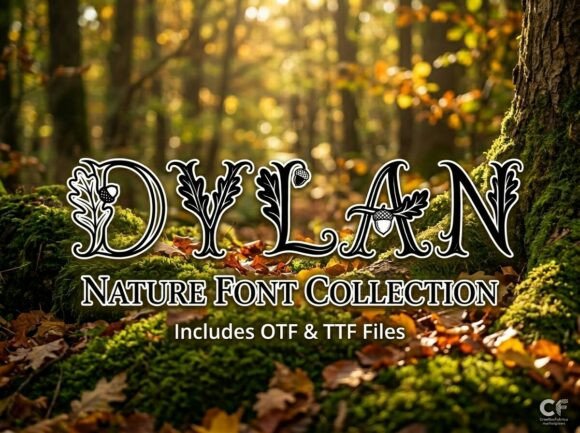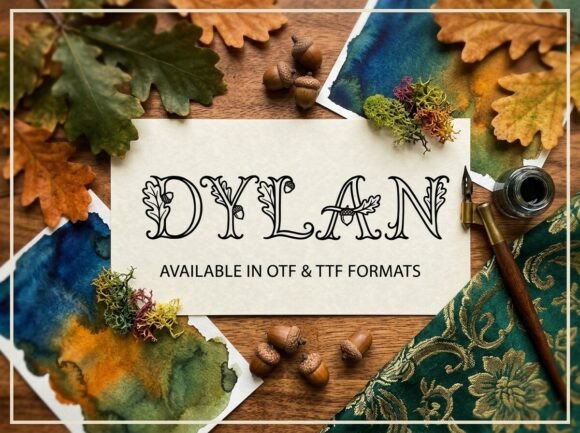
Introducing Dylan Font: A Majestic Display Typeface for Your Creative Projects
Are you looking for a font that can add a touch of elegance and whimsy to your creative projects? Look no further than Dylan Font, a stunning display typeface that captures the essence of the great outdoors. With its unique blend of classic serif letterforms and organic, hand-drawn elements, Dylan is the perfect choice for designers and crafters who want to bring a sense of wonder and magic to their work.
The Inspiration Behind Dylan Font
Dylan Font is inspired by the beauty of the natural world, with a focus on the majesty of the forest. The font features elegant, high-contrast serif letterforms that are uniquely integrated with rhythmic, hand-drawn oak leaves and acorns. These organic elements sprout gracefully from the terminals of the letters, adding a touch of whimsy and playfulness to the font. The result is a typeface that feels both refined and rustic, perfect for projects that require a sense of balance and harmony.
Key Features of Dylan Font
So what makes Dylan Font so special? Here are just a few of its key features:
- Elegant Serif Letterforms: Dylan Font features classic serif letterforms with a high-contrast design that adds a touch of sophistication and elegance to any project.
- Hand-Drawn Oak Leaves and Acorns: The font’s unique organic elements are hand-drawn and add a touch of whimsy and playfulness to the design.
- Balanced Structural Weight: Dylan Font has a balanced structural weight that makes it perfect for a wide range of applications, from headings and titles to body copy and captions.
- Organic Personality: The font’s organic personality makes it feel approachable and natural, perfect for projects that require a sense of warmth and authenticity.
Use Cases for Dylan Font
Dylan Font is a versatile typeface that can be used in a wide range of creative projects. Here are just a few ideas to get you started:
- Independent Botanical Branding: Use Dylan Font to create stunning branding and packaging for your botanical products, from skincare and cosmetics to plant-based foods and beverages.
- Autumn-Themed Event Stationery: Add a touch of seasonal charm to your event stationery with Dylan Font, perfect for weddings, harvest festivals, and other autumn-themed celebrations.
- Artisanal Forest-to-Table Menus: Use Dylan Font to create menus that showcase the beauty of the forest and the freshness of your ingredients.
- High-Impact Social Media Headers: Make a statement with Dylan Font and create high-impact social media headers that grab attention and inspire engagement.
Why Choose Dylan Font?
So why choose Dylan Font for your creative projects? Here are just a few reasons:
- Unique and Eye-Catching: Dylan Font is a one-of-a-kind typeface that will help your projects stand out from the crowd.
- Versatile: The font can be used in a wide range of applications, from print and digital to web and social media.
- Elegant and Whimsical: Dylan Font combines classic elegance with a touch of whimsy and playfulness, making it perfect for projects that require a sense of balance and harmony.
Dylan Font is a majestic display typeface that is sure to inspire your creative projects. With its unique blend of classic serif letterforms and organic, hand-drawn elements, this font is perfect for designers and crafters who want to bring a sense of wonder and magic to their work. Whether you’re creating branding and packaging, event stationery, menus, or social media headers, Dylan Font is the premier choice for anyone who wants to add a touch of elegance and whimsy to their projects.